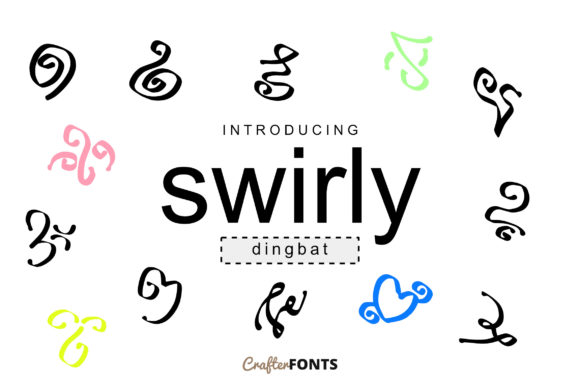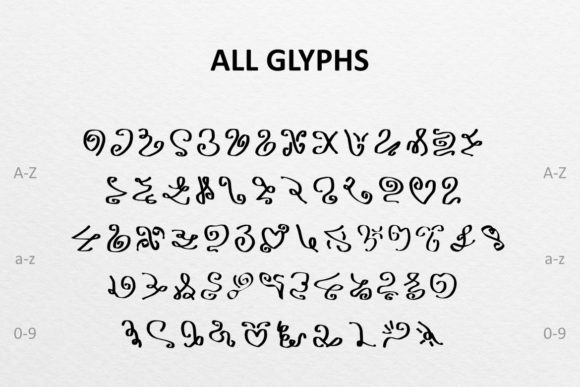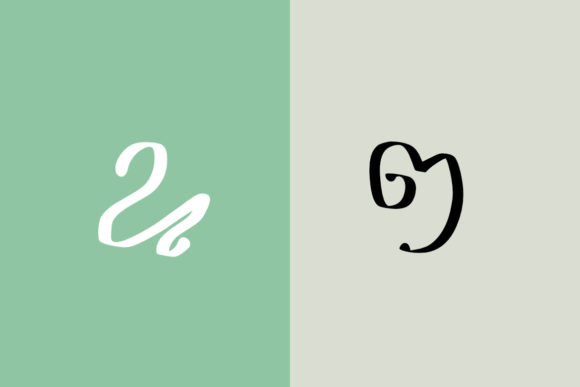
Swirly Font
About Swirly Font
Swirly is a versatile and elegant dingbats font that adds a touch of sophistication and flair to your designs. With its collection of 62 symbols, this font is well-suited for a wide range of projects, including logos, ornaments, and any creations that call for enhanced writing and decorative elements.
The symbols in Swirly are characterized by their intricate and flowing designs, featuring graceful curves and ornamental details. From delicate swirls and flourishes to decorative borders and embellishments, Swirly offers a diverse set of symbols that can elevate your designs with a sense of elegance and artistic appeal.
Whether you’re working on invitations, stationery, branding materials, or any other project that requires enhanced writing, Swirly can provide the perfect visual elements to bring your designs to life. The ornate and decorative nature of the symbols in Swirly adds a touch of beauty and sophistication, creating a visually pleasing aesthetic that captures attention.
Additionally, Swirly can be utilized in various formats and mediums. You can seamlessly integrate the symbols into digital designs, such as websites, social media graphics, or digital invitations. They can also be used for print materials, including business cards, brochures, and signage, allowing you to create visually striking and cohesive designs.
The symbols in Swirly are designed to be scalable, ensuring that they maintain their intricate details and legibility regardless of the size or resolution of your design. This flexibility allows you to use Swirly in both small-scale and large-format projects, accommodating a range of applications.
By incorporating Swirly into your designs, you can add a touch of elegance and sophistication to your projects. The ornamental and decorative nature of the symbols brings a sense of artistry and craftsmanship to your writing, making them particularly suitable for projects that require enhanced typography and decorative elements.
So go ahead and explore the possibilities that Swirly offers. Let your creativity flow and use the diverse symbols to create captivating designs that exude elegance and sophistication. With Swirly, you can enhance your writing and elevate your projects with beautiful and ornate decorative elements that leave a lasting impression.